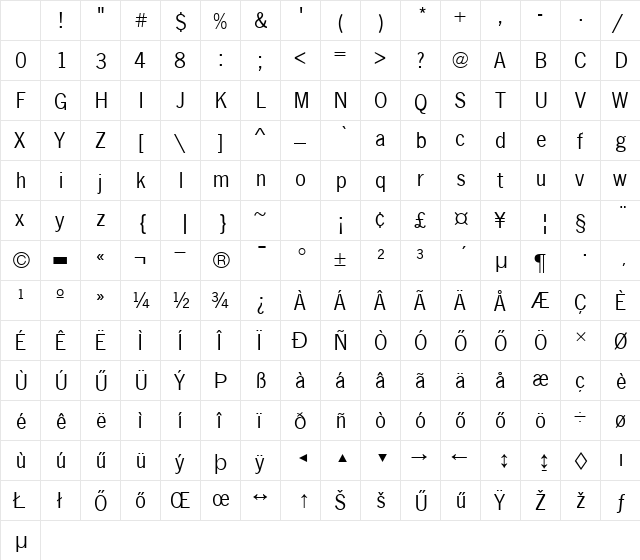
Complete H_News Gothic Normal glyph index. Displaying only characters natively supported by H_News Gothic Normal font.
H_News Gothic takes a clean, functional approach - its unadorned letterforms prioritise legibility and work reliably across screen and print environments.
Font Pairing: Works well alongside a characterful serif or display font that can carry the expressive load while H_News Gothic handles the functional copy.
Pro Tip: Use H_News Gothic for UI labels, navigation, and short-form body copy where clean legibility is the priority.